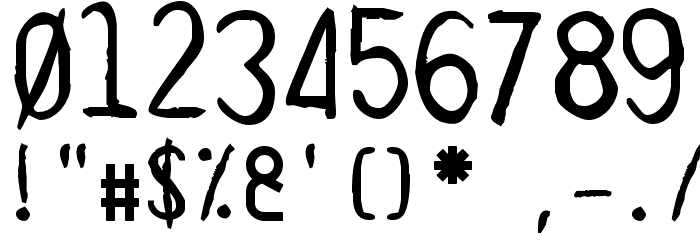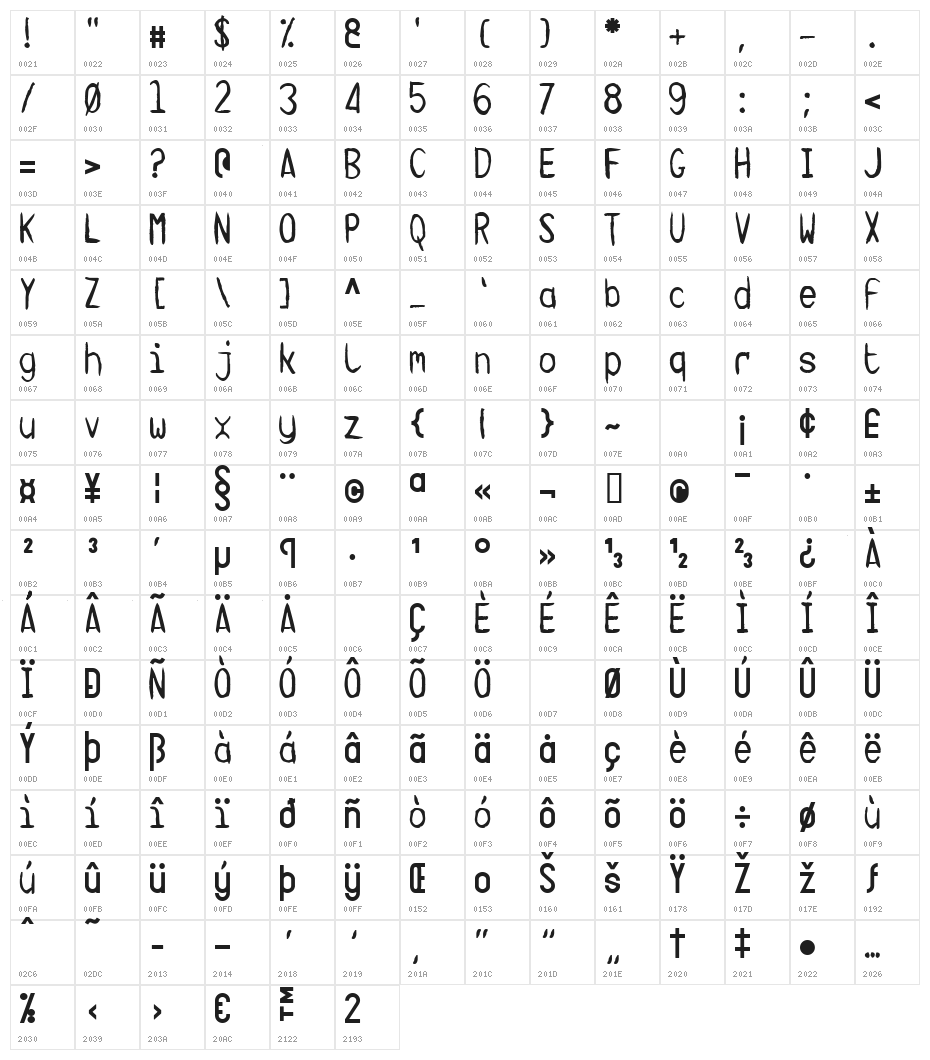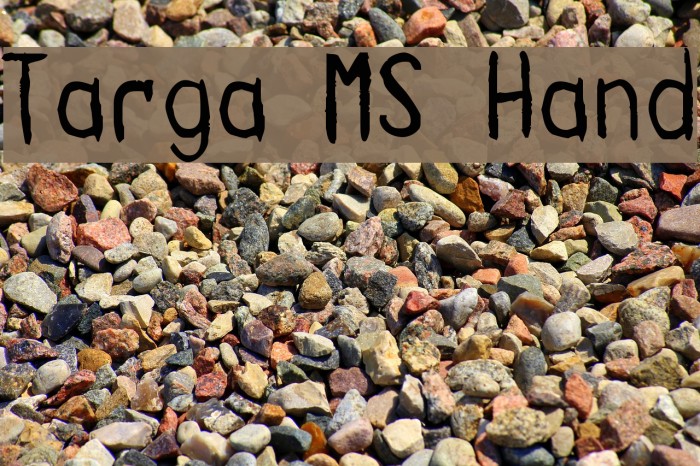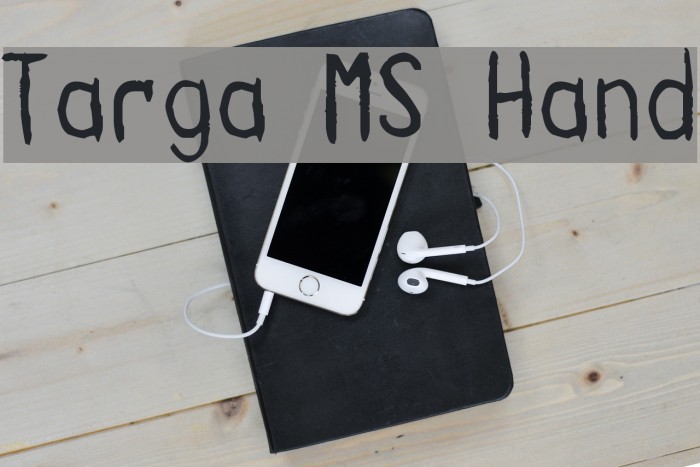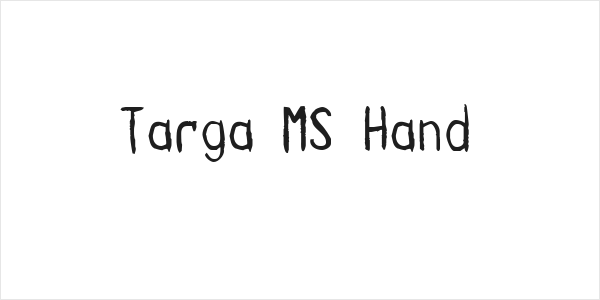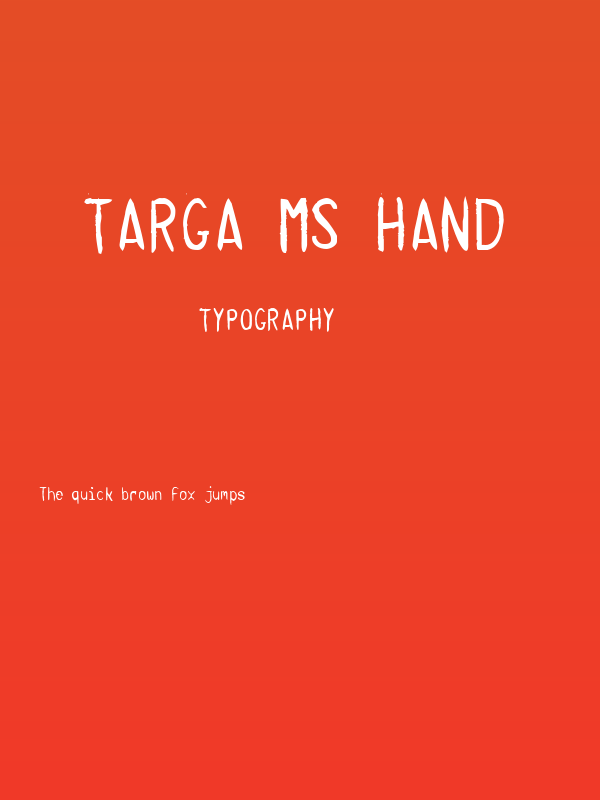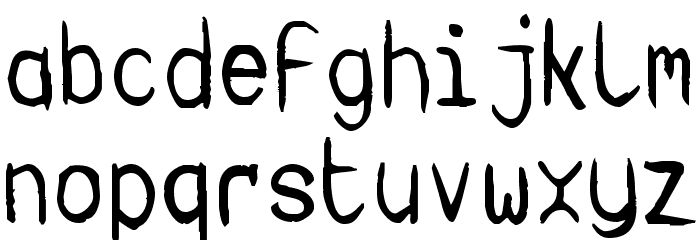
Targa MS Hand Font
Targa MS Hand Description
This font features a hand-drawn, rustic style with uneven strokes and a slightly distressed appearance. The characters have a playful yet rugged look, with varying thickness in the lines that give it a dynamic and organic feel. The uppercase and lowercase letters maintain a consistent style, with rounded edges and a casual, informal vibe. Numbers and special characters are designed to match the overall aesthetic, making it suitable for creative and artistic projects. The font's unique character is ideal for conveying a sense of authenticity and individuality.
| Proposed Projects | Ideal for artistic projects, branding, posters, and invitations that require a personal touch. |